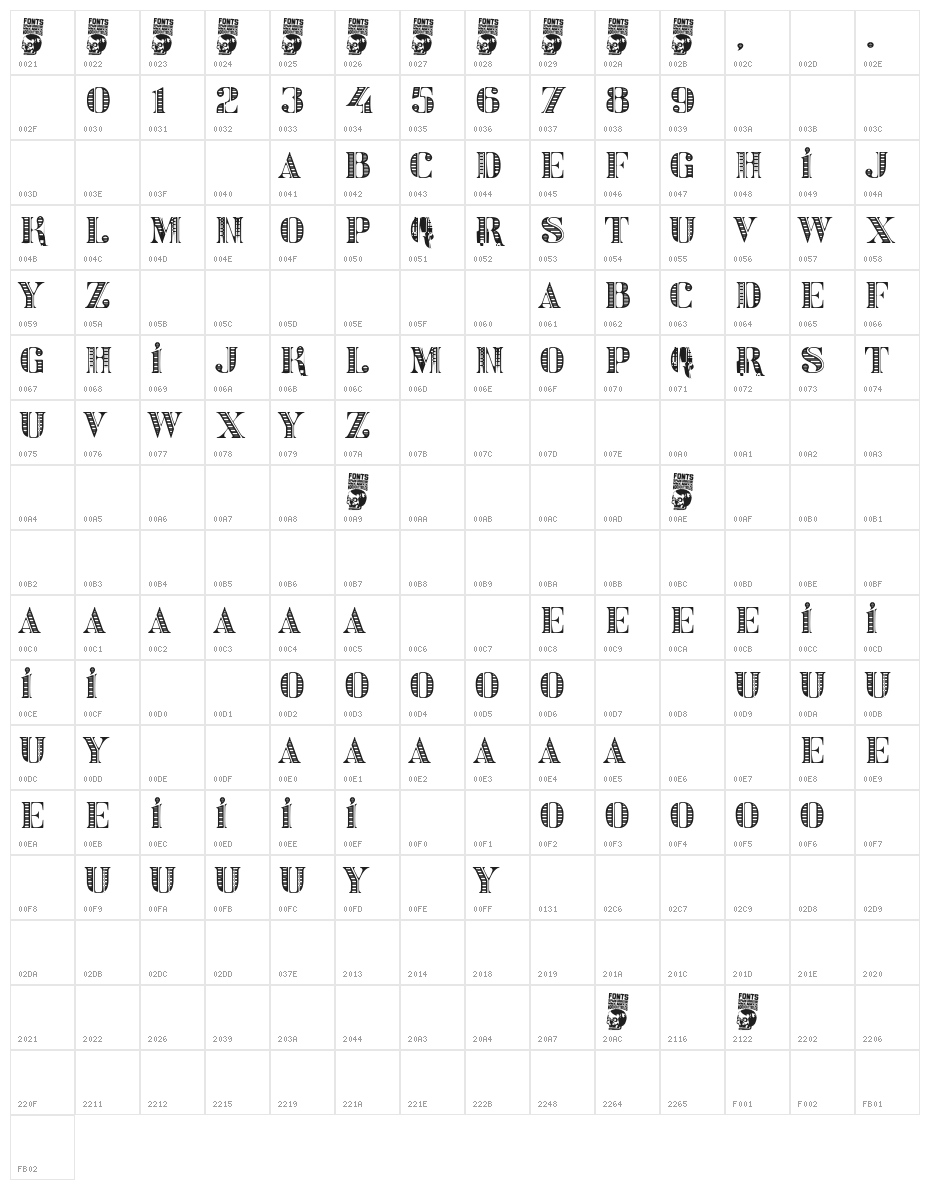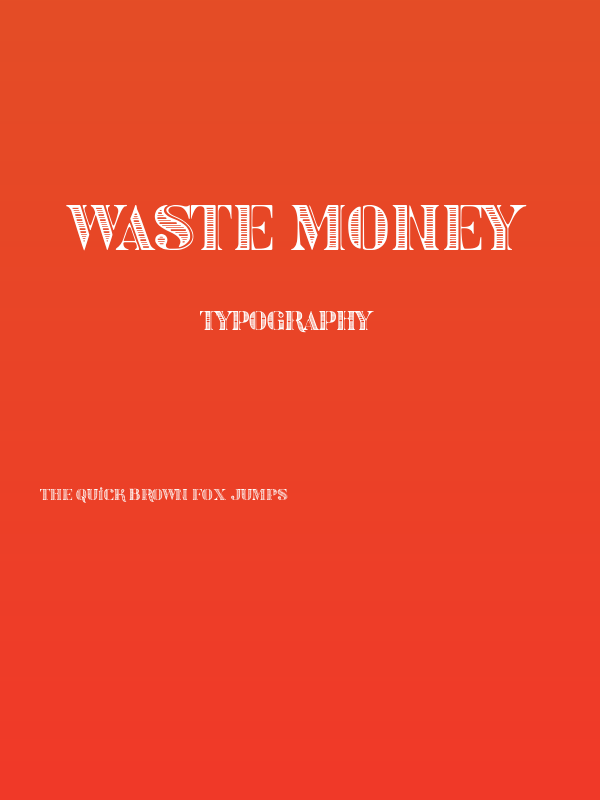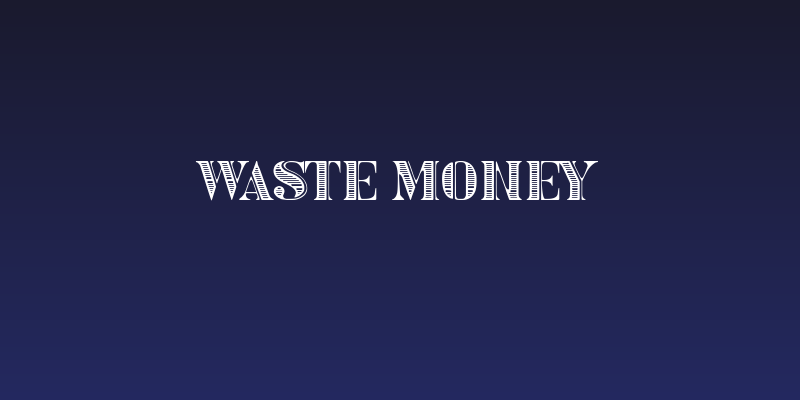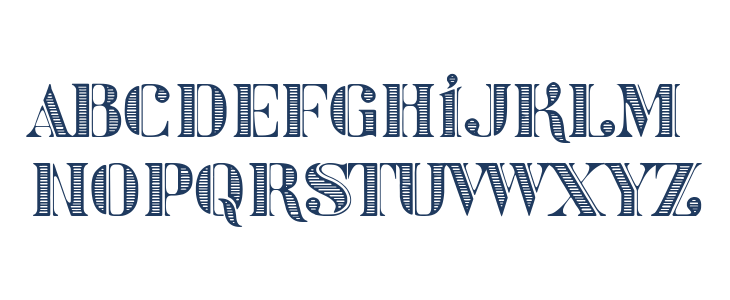
Waste Money Font
Waste Money Description
This font features a bold and decorative style with a unique striped pattern within each character, giving it a distinct and eye-catching appearance. The uppercase letters are designed with a strong presence, while the lowercase letters maintain the same decorative elements, ensuring consistency across the typeface. The numerals and special characters also follow this intricate design, making the font suitable for creative and artistic projects. The overall style is reminiscent of vintage circus or carnival themes, with a modern twist that adds to its versatility.
| Overall Style | Vintage, Decorative |
| Proposed Projects | Ideal for poster designs, event invitations, branding for creative businesses, and any project requiring a bold, artistic touch. |